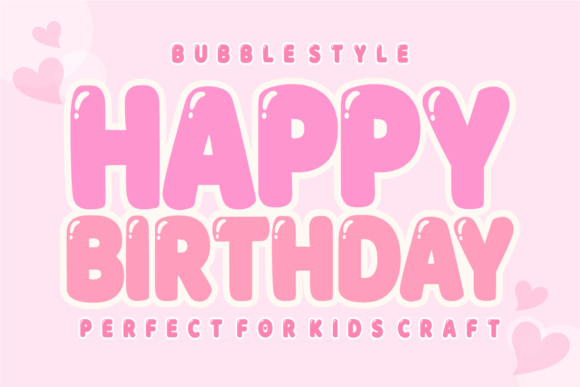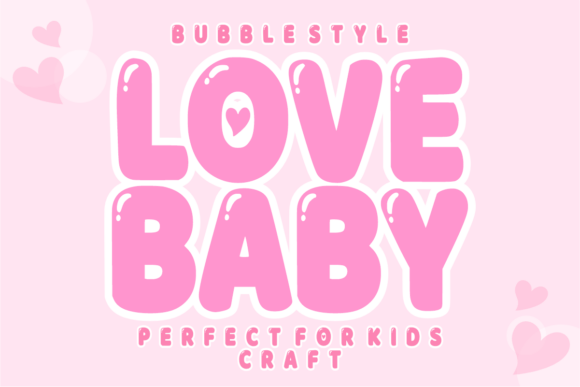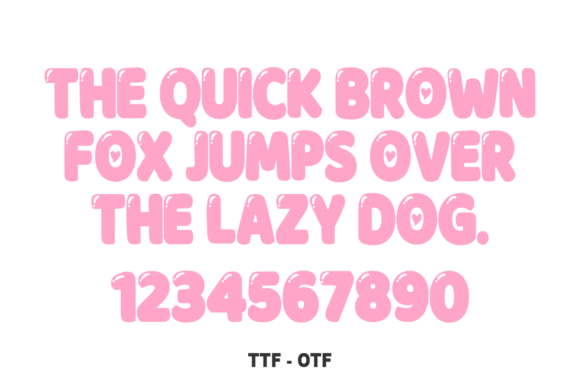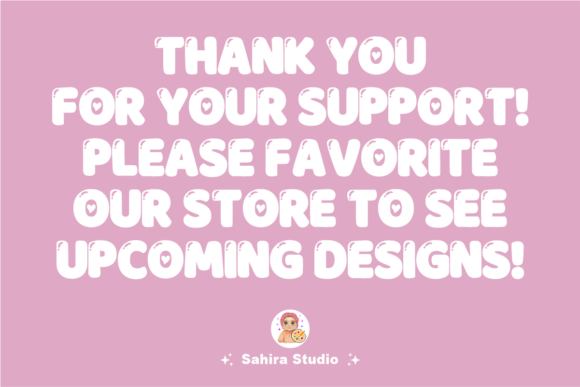
Spread the Joy with Bubble Lovers – The Ultimate Playful Font
Who hasn’t felt a rush of excitement when crafting a special project for a loved one? Maybe it’s a birthday card, a baby onesie, or a personalized t-shirt. Whatever the project, the right font can make all the difference in capturing the intended sentiment. That’s where the Bubble Lovers Font comes in – a sweet and playful display font designed to bring a smile to anyone’s face.
This delightful font features soft, rounded, and plump characters that radiate fun and positivity, making it a must-have for crafters and designers. Whether you’re working on a design for kids’ apparel, birthday decorations, or simply want to add a touch of whimsy to your projects, the Bubble Lovers Font is the perfect addition to your toolkit.
- Unique Characteristics: Bubble Lovers Font features a playful, handwritten style with rounded shapes and soft edges, making it perfect for creating a whimsical and childlike atmosphere.
Bubble Lovers Font Review
As a designer, I was excited to dive into the “Bubble Lovers Font” and see what it had to offer. Overall, I was pleasantly surprised by the whimsical and playful feel of this font.
- Cute and bubbly aesthetic: The font’s rounded edges and playful letterforms make it perfect for designs that need a touch of whimsy.
- Versatile: I was able to use it effectively in both digital and print projects, from social media graphics to merchandise designs.
- Easy to read: Despite its playful appearance, the font is surprisingly easy to read, even at smaller sizes.
- Limited language support: Unfortunately, the font only supports Latin characters, which may limit its use for multilingual designs.
- No italic or bold versions: While this font is perfect for playful designs, it may not be suitable for more formal or professional projects where a bold or italic version would be helpful.
Overall, I think the “Bubble Lovers Font” is a great addition to any designer’s toolkit, especially for projects that need a lighthearted and playful touch. While it has some limitations, its cute and bubbly aesthetic makes it a standout choice for many design applications.
The Bubble Lovers Font is perfect for creating playful and whimsical designs. It’s great for use in social media graphics, children’s books, and party invitations. To get the most out of this font, use it in combination with bold and bright colors, and consider pairing it with other fun and playful fonts.